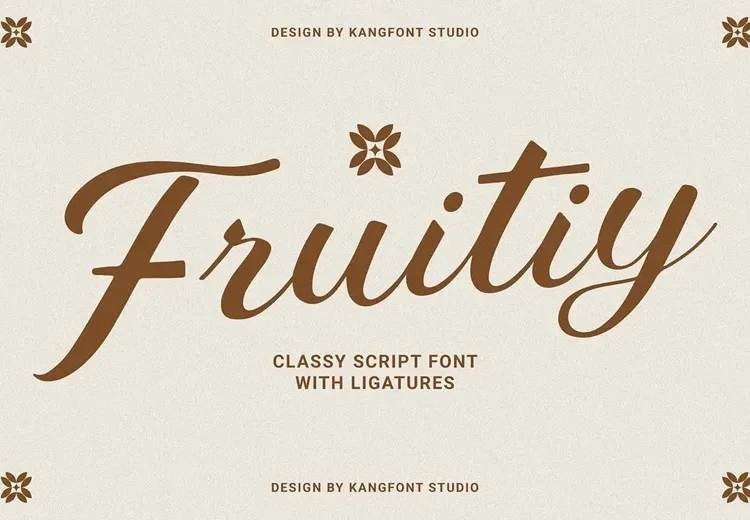
Fruitiy Font
Fruity is a graceful script calligraphy font that combines fine detailing with exquisite ligatures, offering a refined touch to any design. With its soft, rounded shapes and harmonious lines, this typeface exudes elegance, making it ideal for invitations, logos, branding, and other projects requiring a delicate yet professional aesthetic.
Designed with a timeless classic appeal infused with contemporary flair, Fruity is perfect for creating luxurious yet classy visuals. It works beautifully across various themes, from lifestyle and fashion to organic product websites. Pair it with warm brown tones to evoke a cozy, home-like feeling and add depth to your design projects.